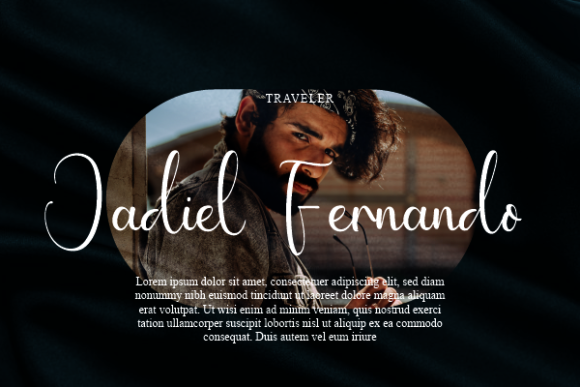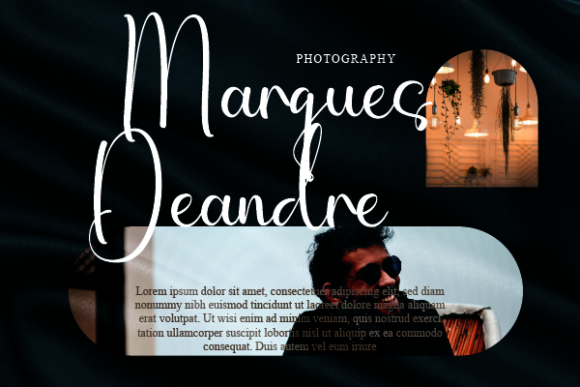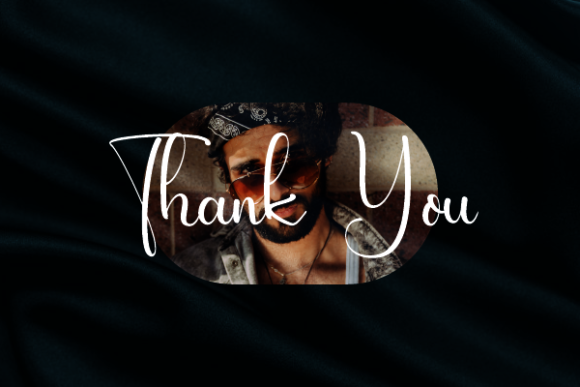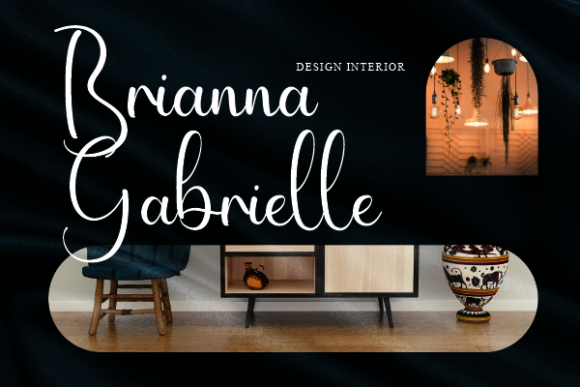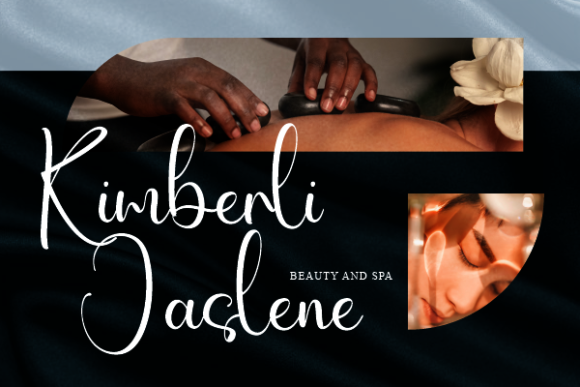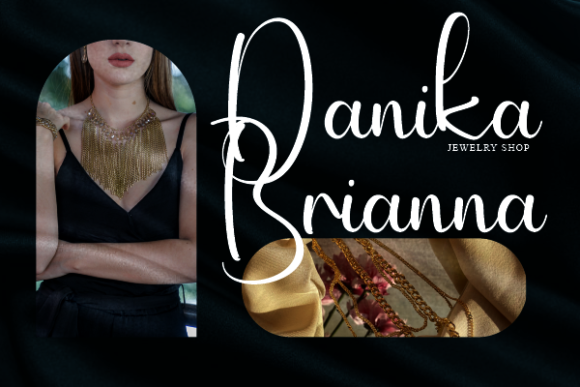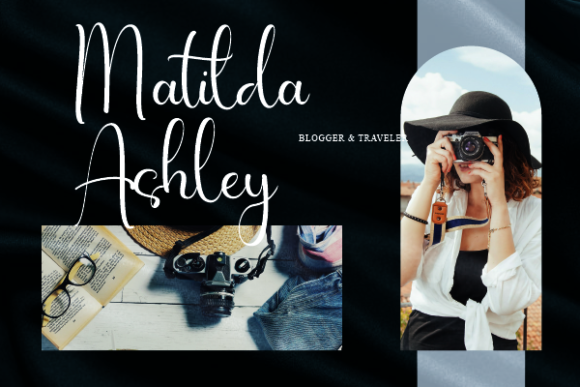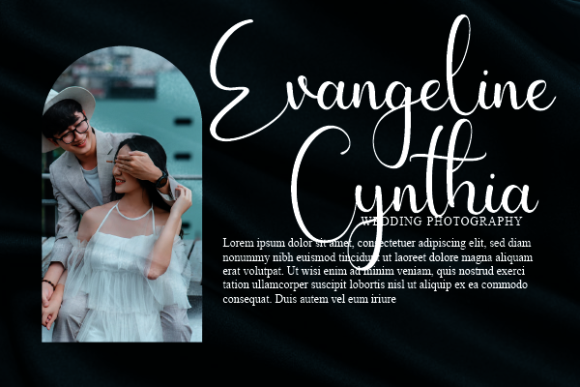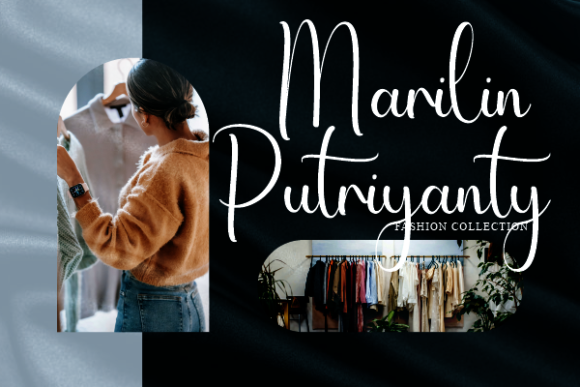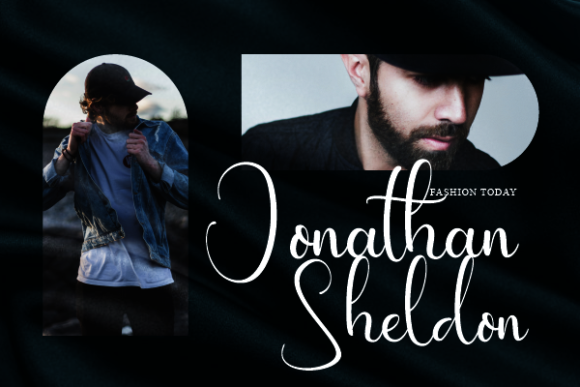
Clementine Ensley Font
Clementine Ensley is an exquisite and stylish script font that exudes a sense of delicacy and modernity. With its carefully crafted strokes and elegant forms, this font is an excellent choice for a wide range of branding projects, including logos, t-shirt designs, and various creative products.
The font’s sophisticated and fashionable aesthetic makes it a versatile tool for enhancing the visual appeal of your projects. Whether you’re working on a high-end fashion brand, a trendy merchandise line, or any creative endeavor that requires a touch of elegance, Clementine Ensley rises to the occasion.
The font’s PUA encoding provides you with effortless access to its extensive collection of glyphs and swashes, allowing you to seamlessly integrate decorative elements into your designs. This feature empowers you to unleash your creativity and add unique flourishes to your branding materials, making them truly stand out.
Clementine Ensley’s flowing and graceful characters lend themselves well to a variety of applications. From printed materials like business cards and posters to digital designs for social media and websites, this font’s ability to convey a sense of sophistication ensures that your branding efforts leave a lasting impact.
The delicate and fashionable nature of Clementine Ensley makes it a perfect fit for projects that demand a refined and modern aesthetic. Its clean lines and stylish curves contribute to a sense of professionalism, making it a go-to choice for businesses and individuals looking to make a bold and elegant statement.
Incorporating Clementine Ensley into your design projects allows you to tap into a world of creativity and visual appeal. Its versatility and accessibility, thanks to PUA encoding, enable you to explore various design possibilities and create branding materials that resonate with your target audience.
With Clementine Ensley, you have a font that combines delicacy and fashion, resulting in a powerful tool that can transform ordinary text into a captivating design element. Whether you’re aiming for a subtle touch of elegance or a bold statement of style, Clementine Ensley is there to help you achieve your vision and elevate your branding projects to new heights.